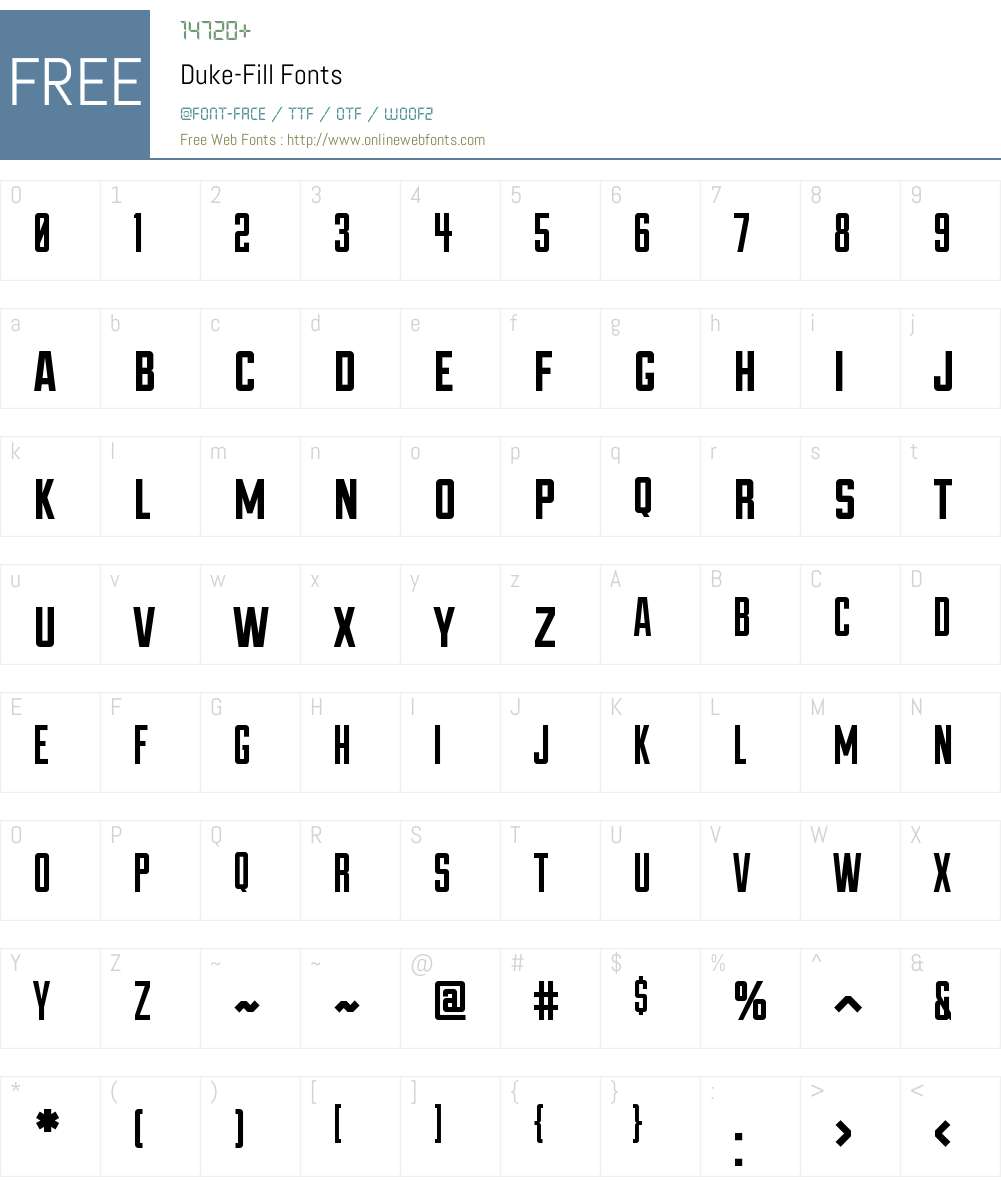
Duke Fill Font Free
Duke fill font free for maс os: Based on the signage for the cup and saucer luncheonette in new york, duke features three layers: Duke duke fill.otf 11 kb | fontsblog.com.